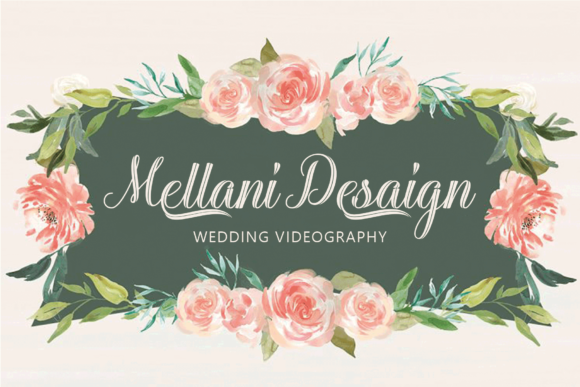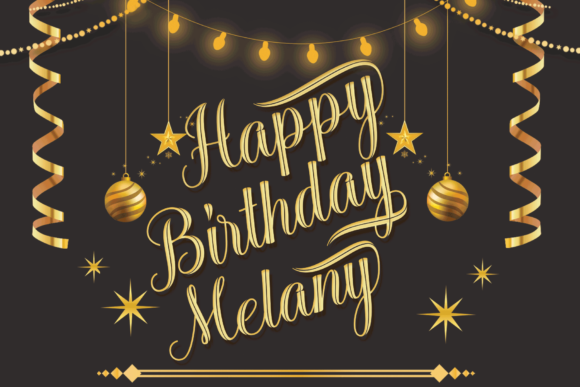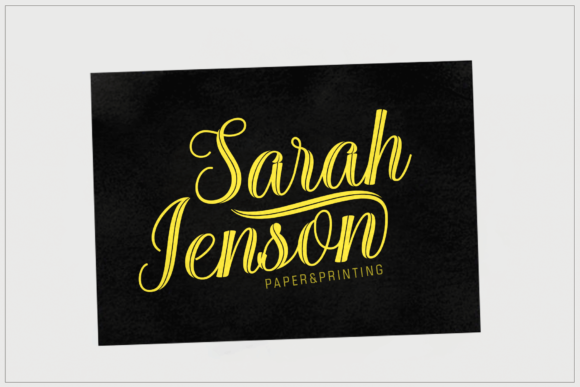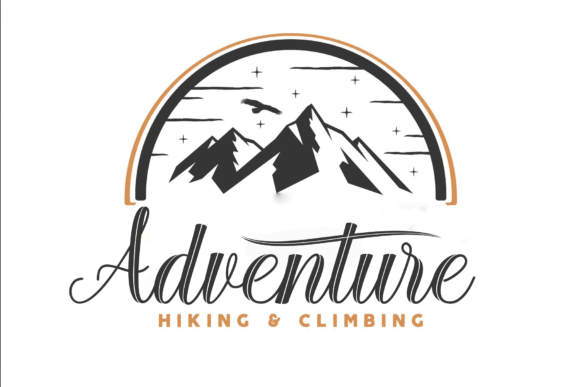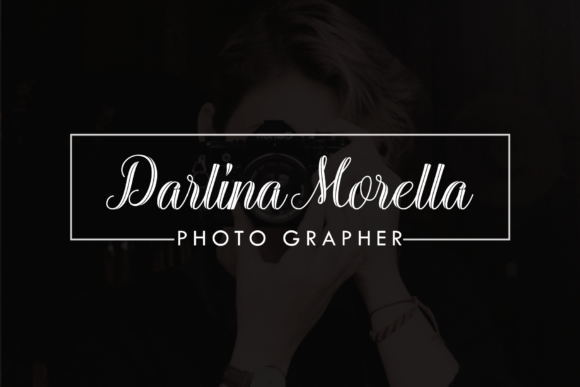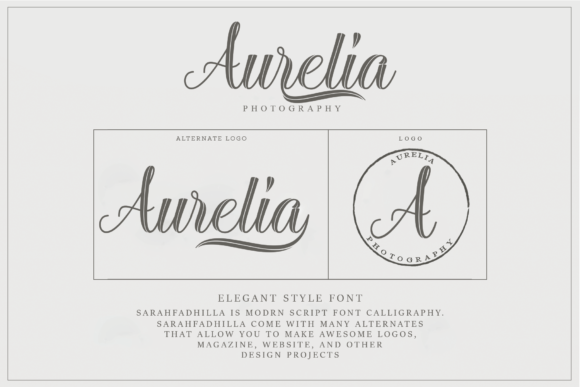
Introduction to Sarahfadhilla Font
Sarahfadhilla is a sweet, soft hand-lettered script font.
This is a beautiful combination of timeless elegance and authentic calligraphy It features an incredibly classic style, while still keeping a friendly feel.
Key Features of Sarahfadhilla Font